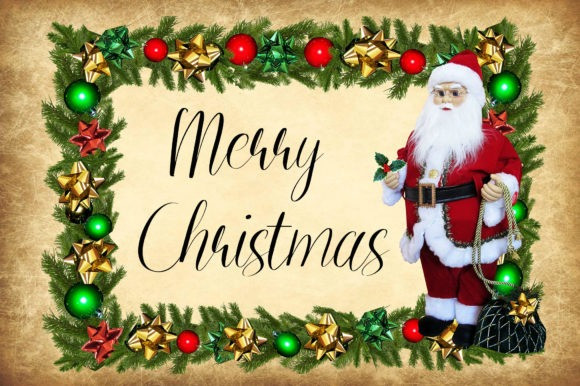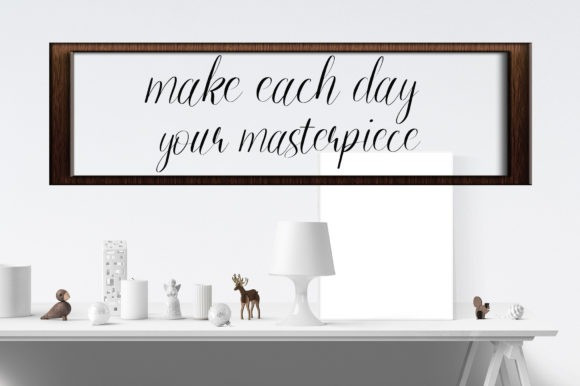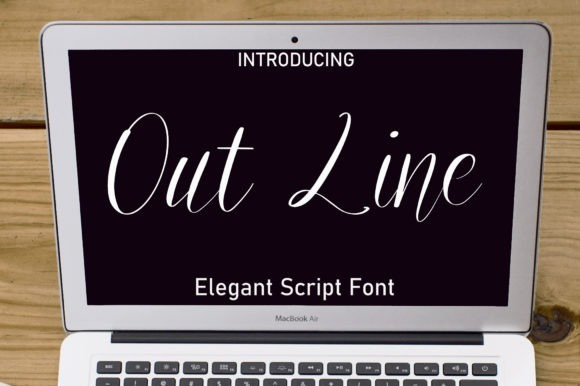
Out Line Font
Out Line Font is a beautiful, well balanced and stylish script font. It is defined by smooth curves and is perfect for fashion branding or editorial designs.